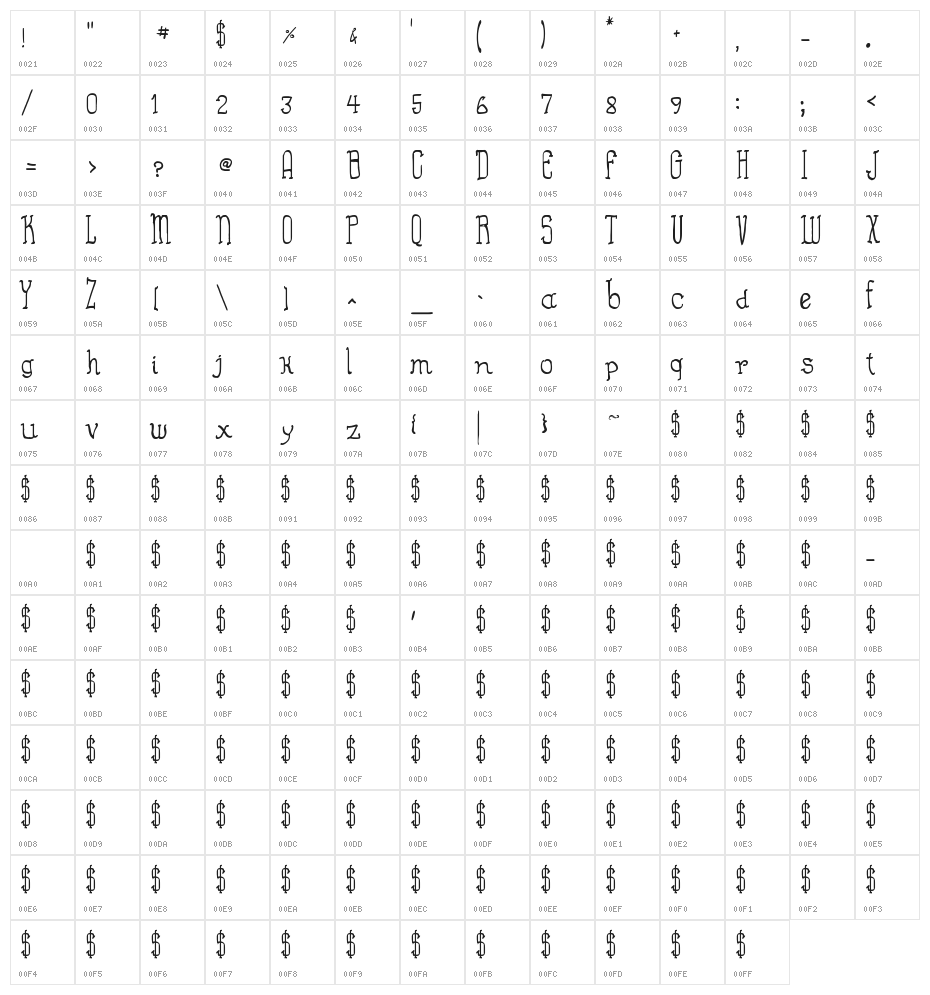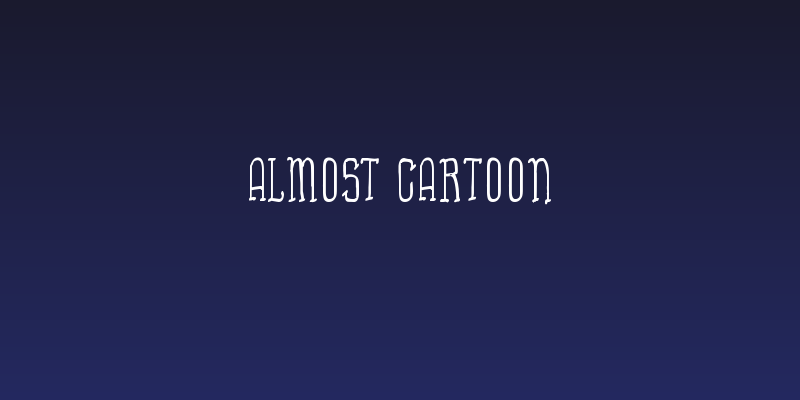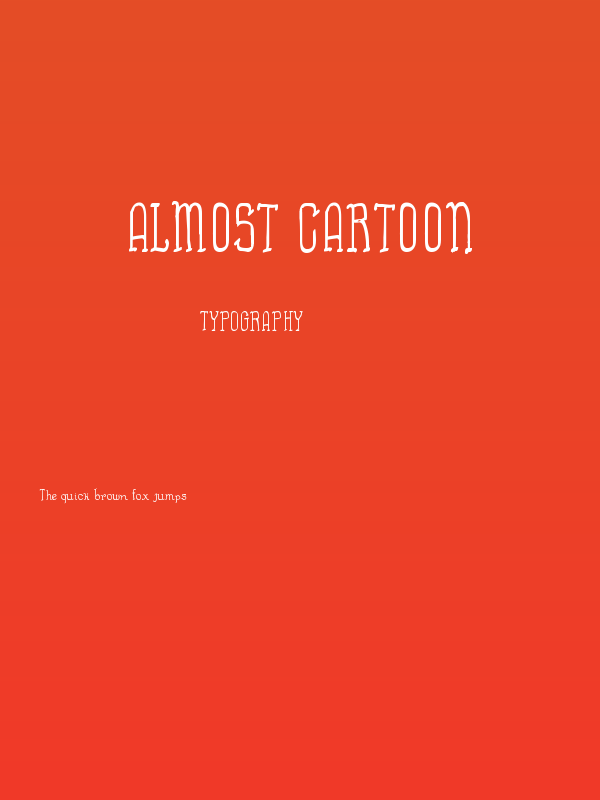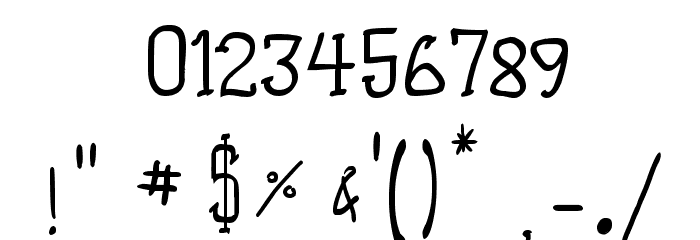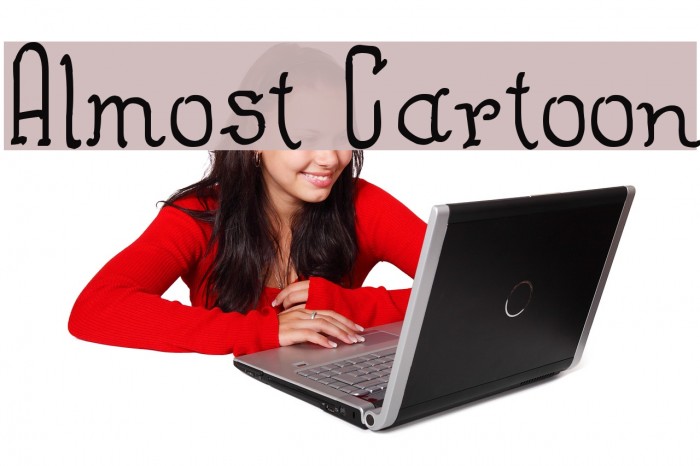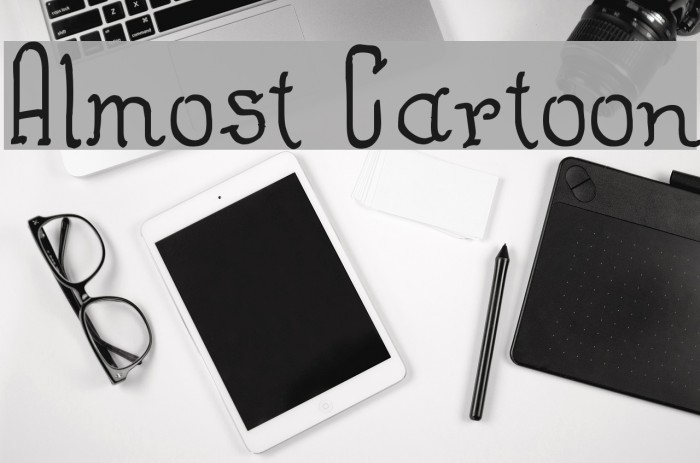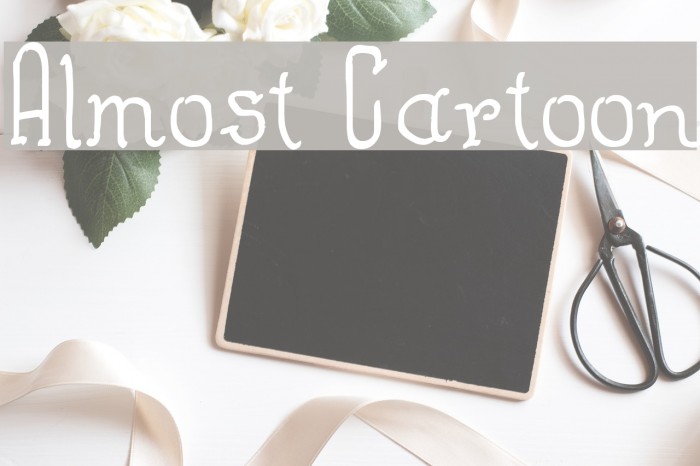
Almost Cartoon Font
Fonts by Galdino Otten - galdinootten.com
| 全体的なスタイル | Playful, Whimsical, Hand-drawn |
| おすすめプロジェクト | Ideal for children's books, comic strips, playful branding, and creative posters. |